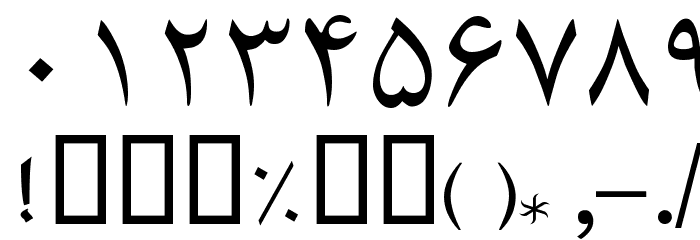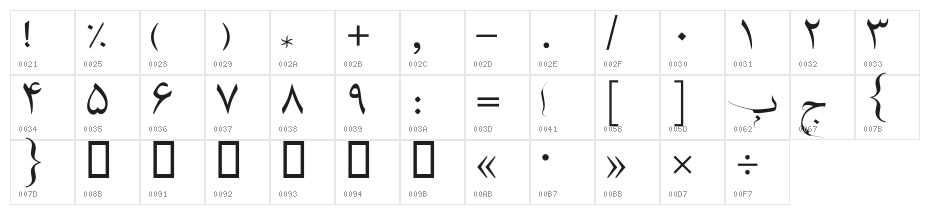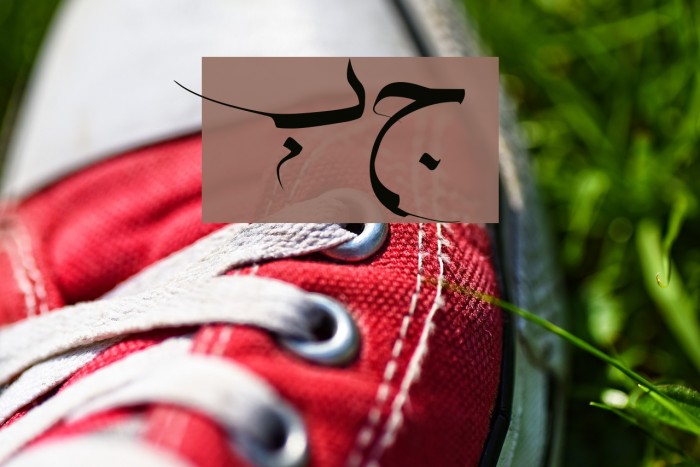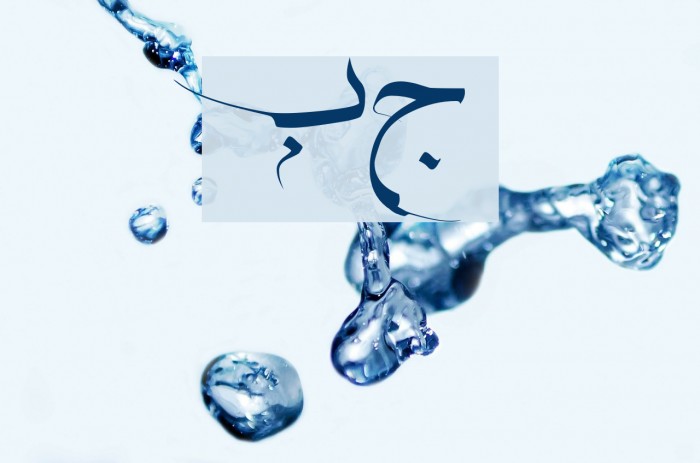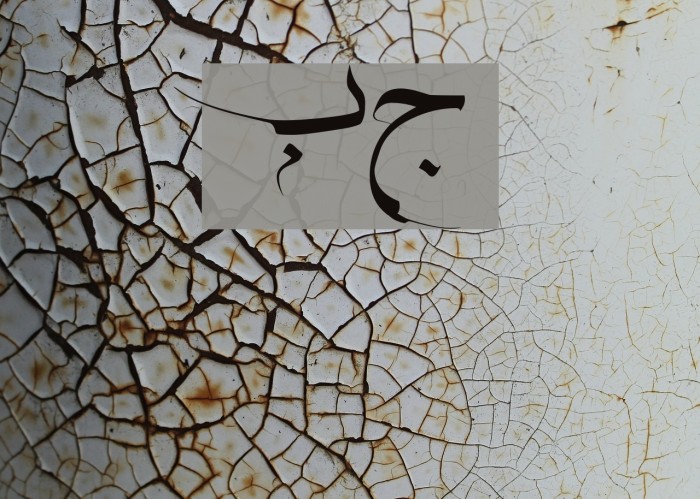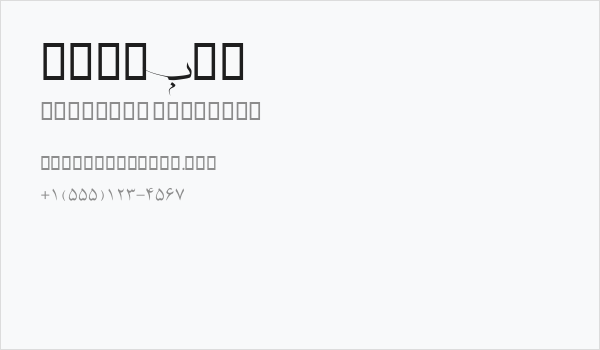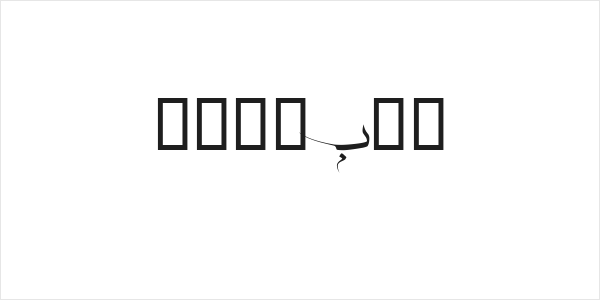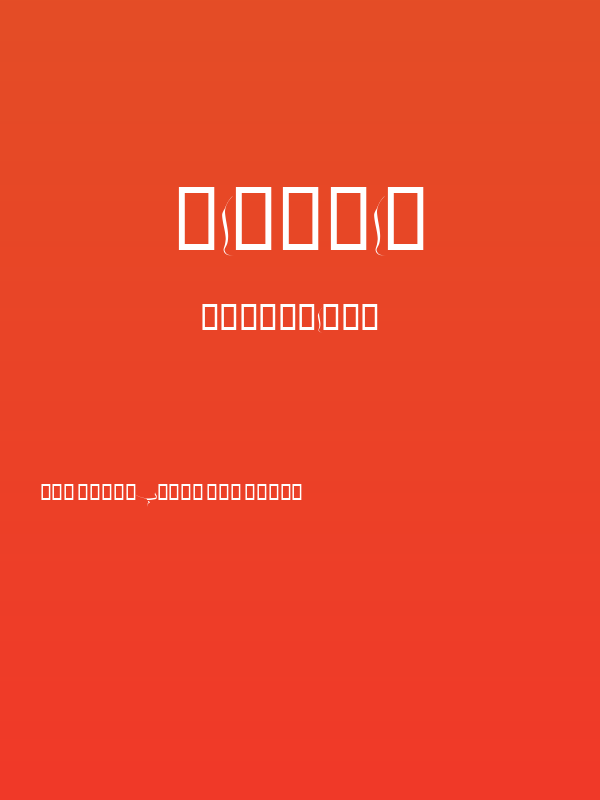
Katibah Font
Katibah Description
This font is a beautifully crafted Arabic script that exudes elegance and sophistication. The characters are gracefully curved with a fluid motion that captures the essence of traditional calligraphy. Each letter is meticulously designed to maintain a harmonious balance between form and function, making it ideal for conveying a sense of cultural richness and artistic expression. The numerals are equally well-crafted, offering a seamless integration with the overall style. This font is perfect for projects that require a touch of authenticity and cultural depth, such as branding for Middle Eastern products, artistic publications, or cultural event promotions.
| Use Case | Logos, Artistic publications, Cultural branding |
| Proposed Projects | Ideal for cultural branding, artistic publications, and event promotions. |